Fonts can be amazing and friendly in every design, but there are exceptions that can ruin it. We present inline fonts to your court that are not only attractive but also suitable for any design option.
Blendstripe – Fun Inline Font
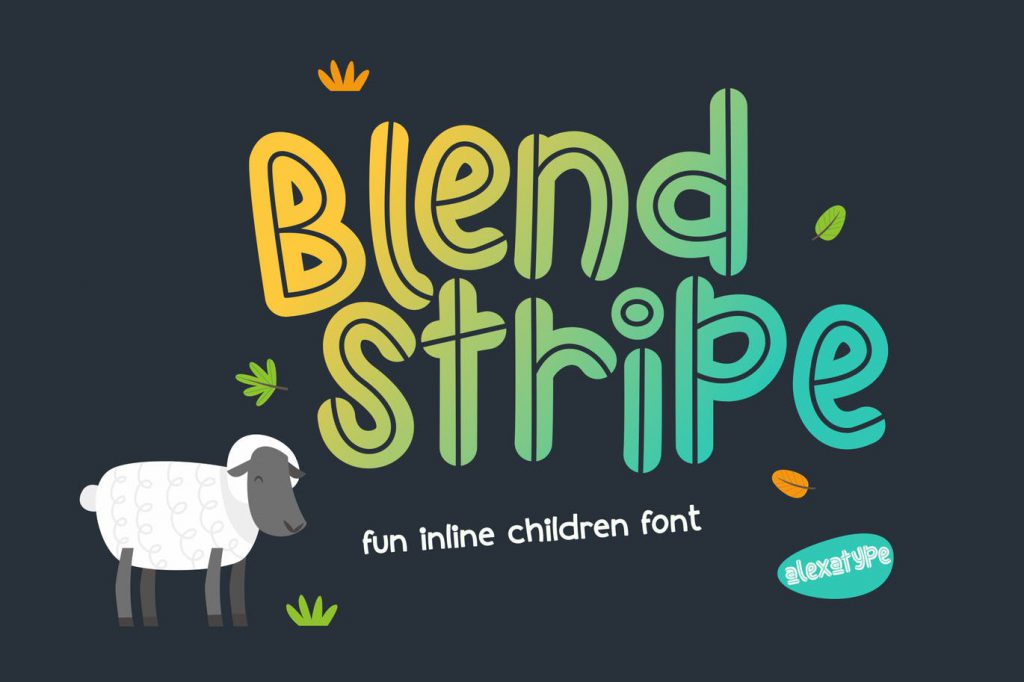
It is a hand drawn inline font that looks cute on your children projects such as wall decorations, posters, t-shirt, books, and website headers.
Hikou Inline
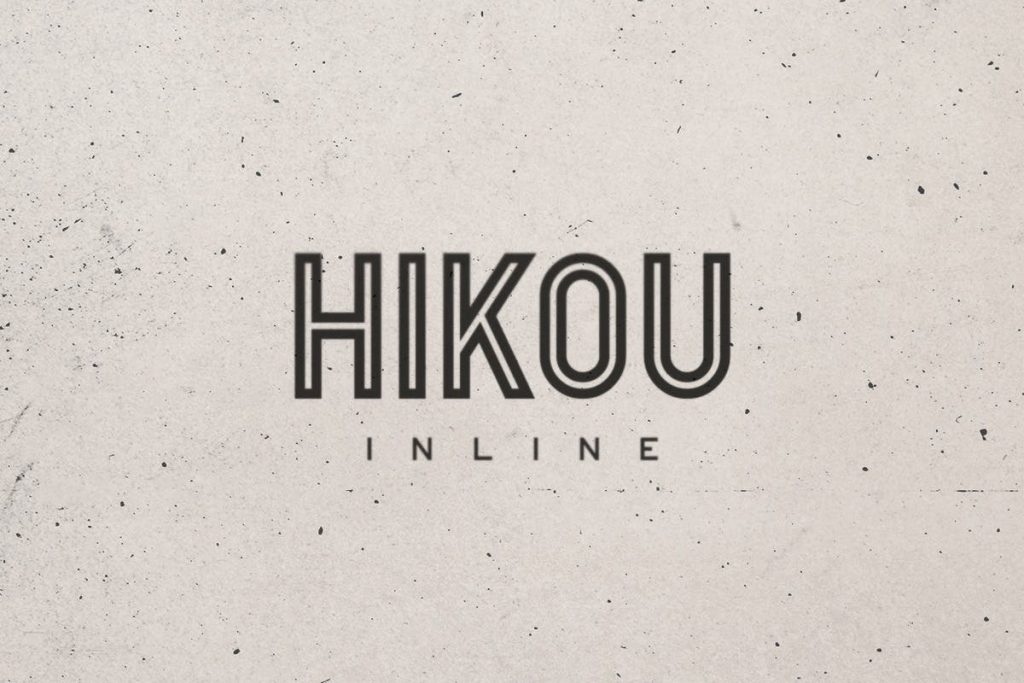
This font is great for titles and big headers. It works great as a vintage font and pairs well with just about anything. It includes uppercase multilingual letters, numbers and punctuation.
Sansterdam Inline & Outline
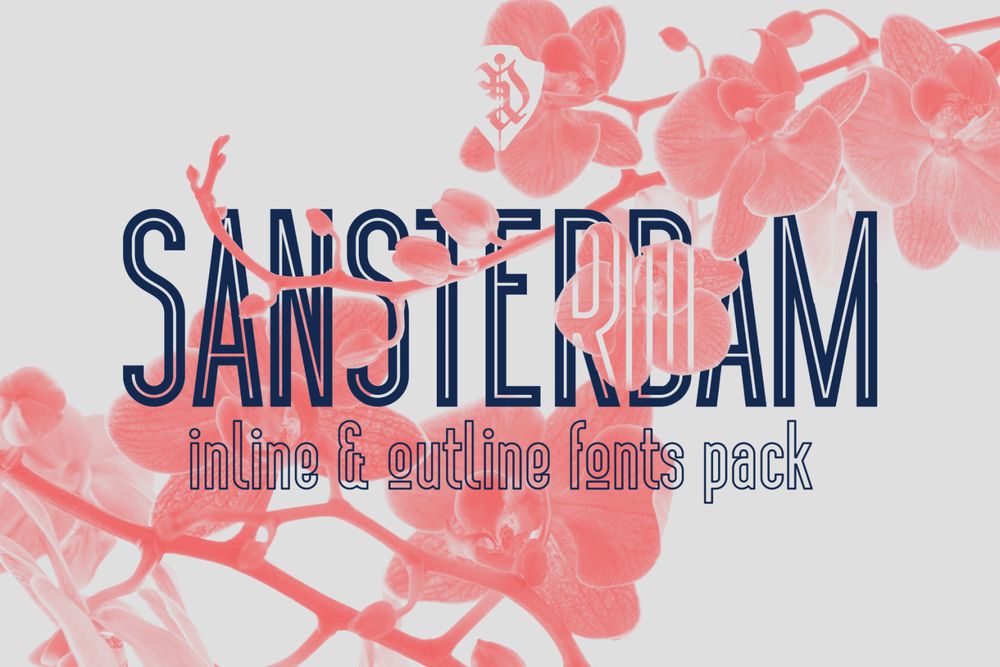
It is a modern geometric condensed grotesque font family. This font can be perfect for titles, posters, logos and etc.
LeOsler Inline & Border
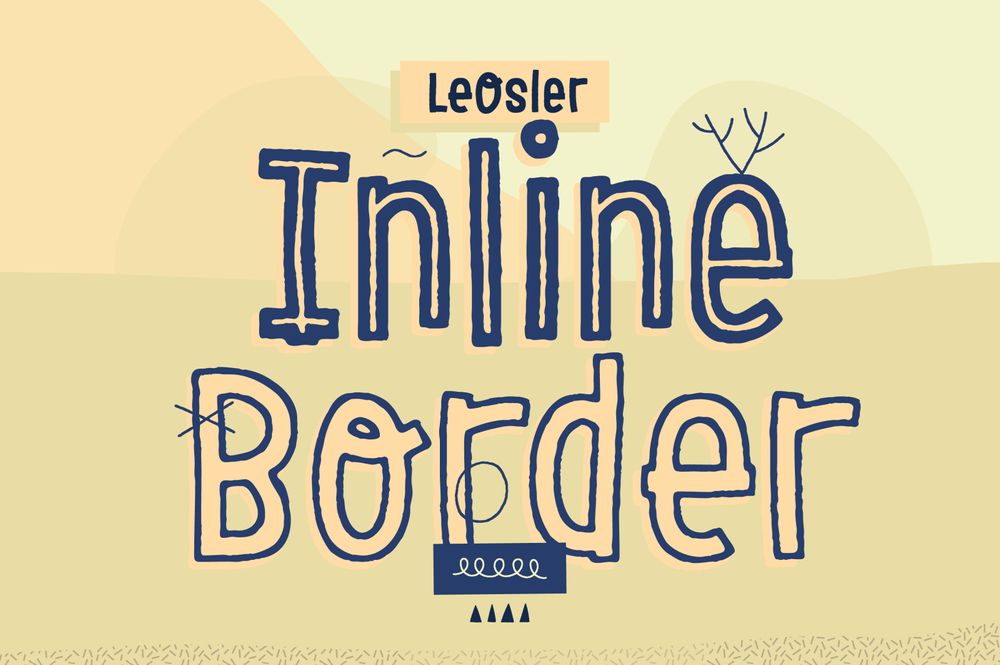
It is a decorative, fun, handwritten font that can be used in a wide range of languages. Perfect for postcards, covers, books, t-shirt, posters and etc.
Burford Inline
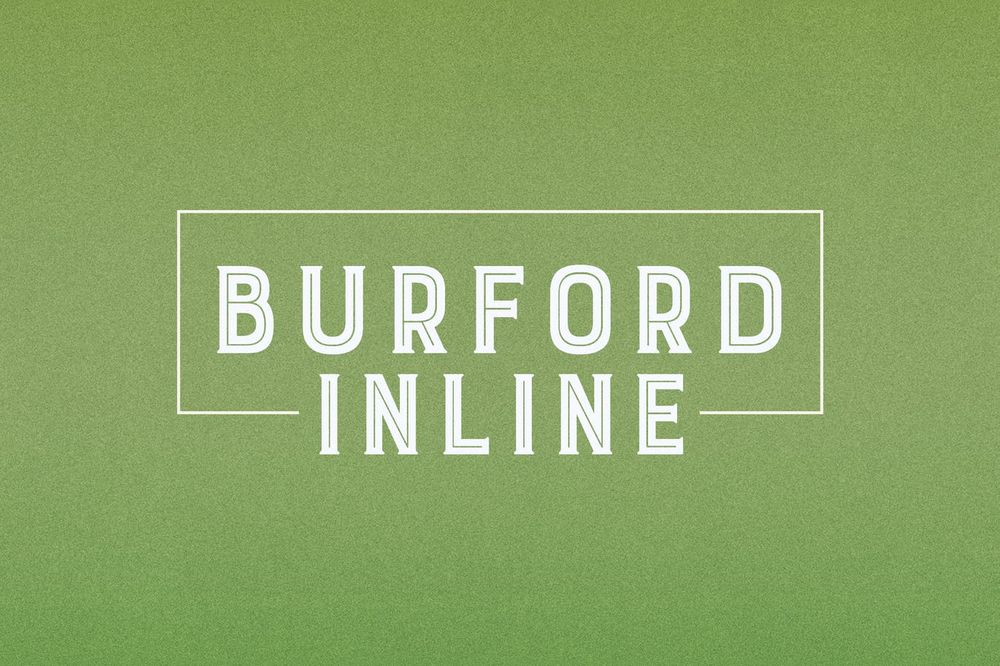
It is a clean and attractive font for any kind of design. This font can be ideal for headlines, titles, posters, covers and etc.
Ballmind / Inline Display Font
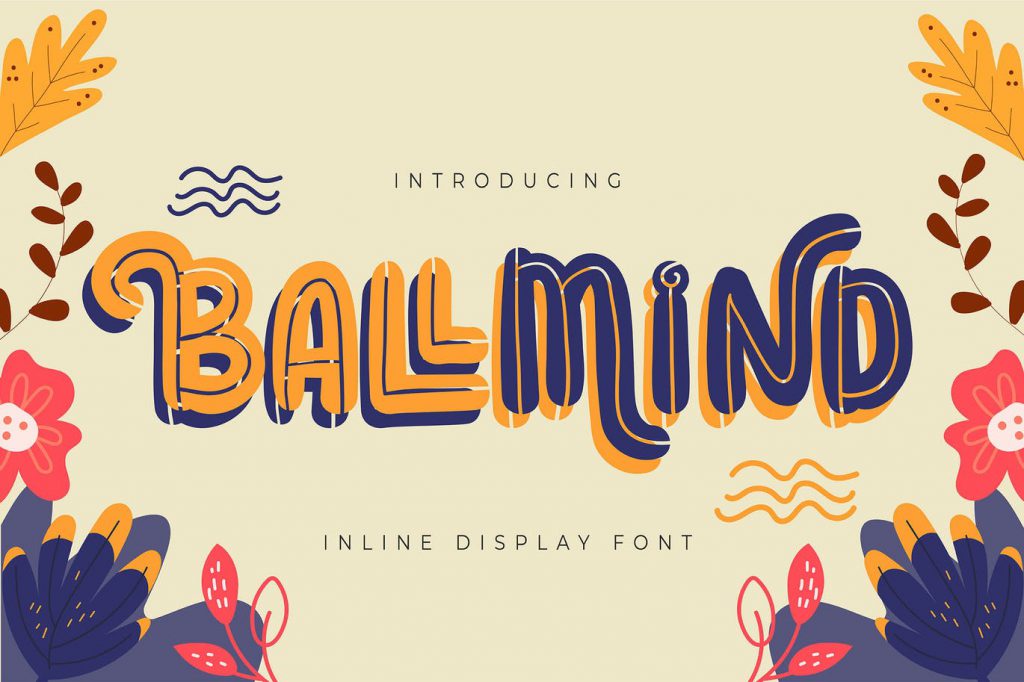
It is inline display font with a calligraphy style, so beautiful on invitation like greeting cards, branding materials, business cards, quotes, posters and etc.
Lovelo Inline Font Family (Free)
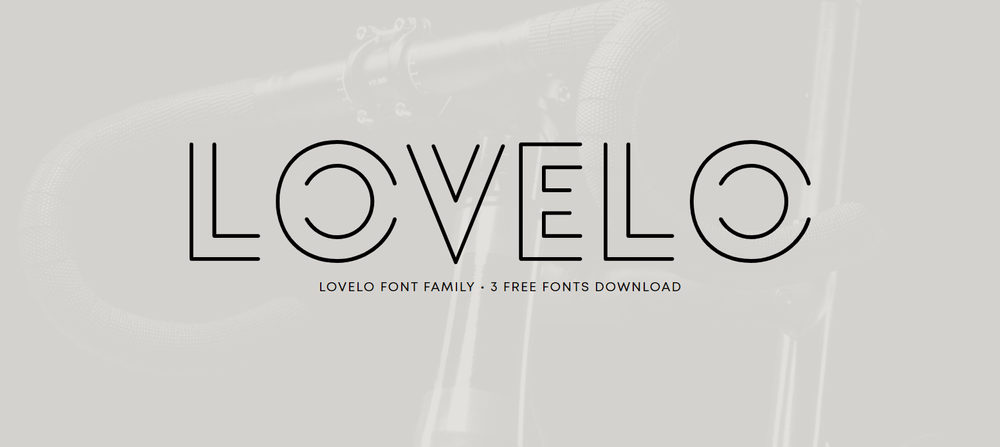
It is a free font remake of the original Lovelo Inline. Perfect for headlines, titles, posters, covers and etc.
Manthan Font (Free)
It is a free decorative font for vintage typography designs such as postcards, invitations, wedding event presentations, posters and etc.
Tribeca Font (Free)
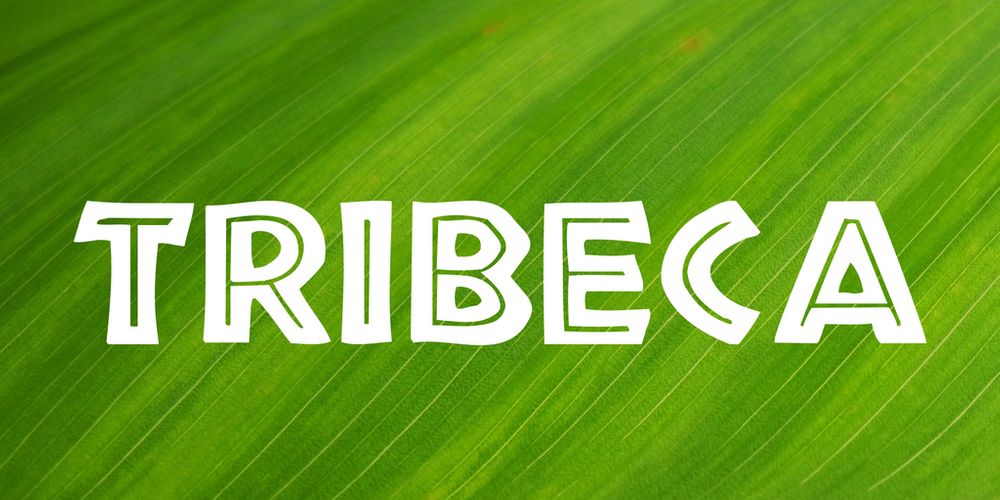
It is a free chunky inline style font for any kind of typography project. You can use it for headlines, titles, covers, posters, books, flyers and etc.
Glaschu Inline Font (Free)
It is a free inline, multilingual and clean font for your design. Perfect for headlines, titles, posters, book covers, packaging and etc.
Retro Neon Font – Inline Style
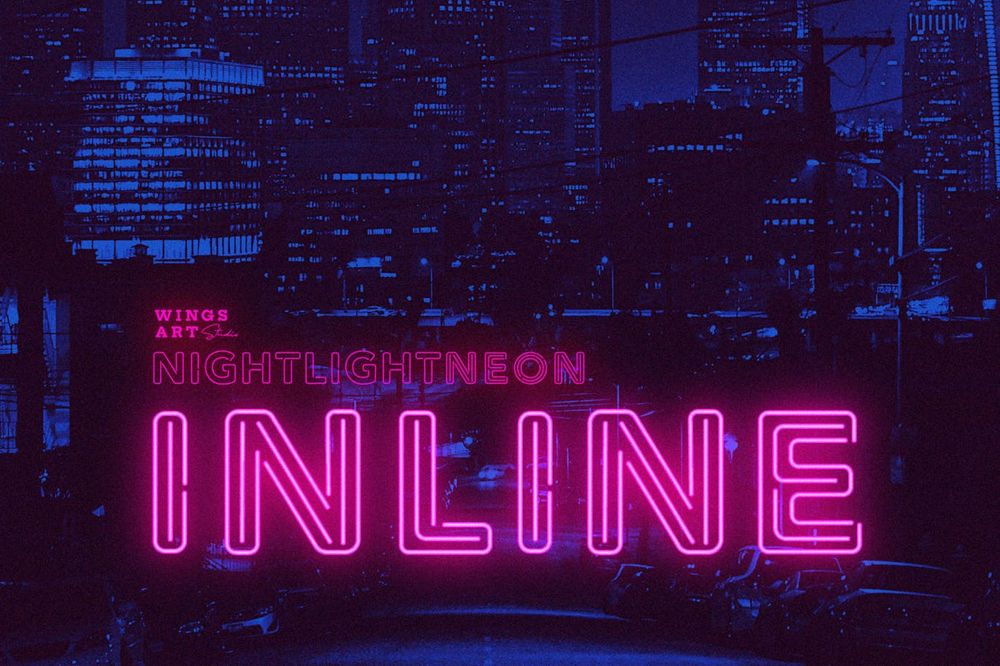
It is a gorgeous inline neon font perfectly suits for headlines, film titles, video tutorials, gig posters and when combined with the included graphic presets.
Elagond – Inline Brush Script
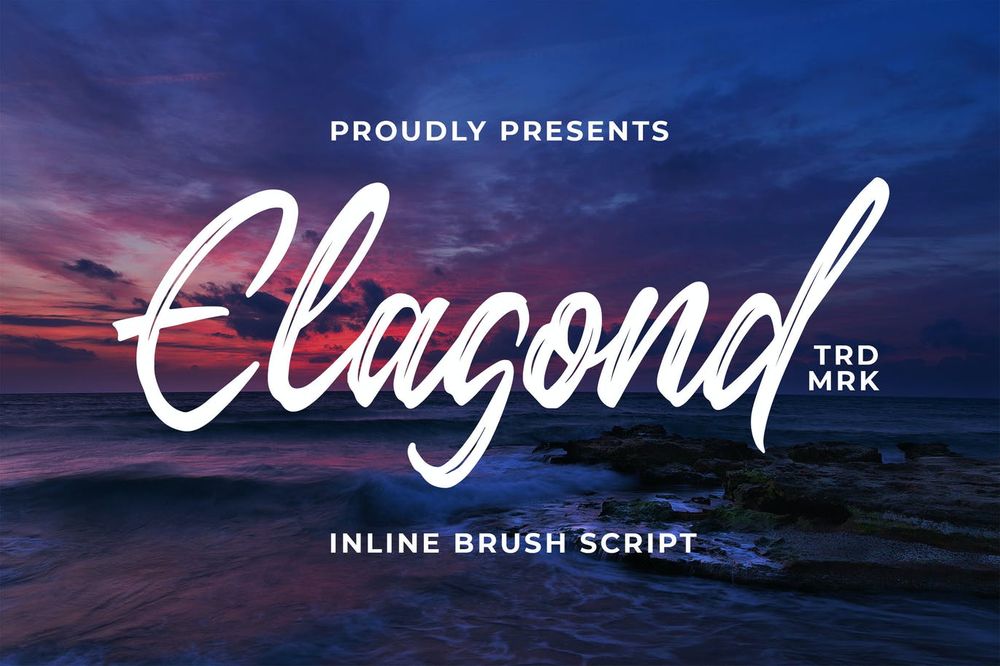
It is a clean and beautiful inline brush script font for designers to use inn their worls such as signatures, watermarks, logos, invitations, greeting cards and etc.
Decurion Typeface
It is a slab display font with many style options. It includes uppercase letters, numbers and some punctuation. Perfect for headlines, titles, posters, logos, covers and etc.
Kids Place Font
It is a new font with a playful, cute, clean style. Have three styles all of which can be combined for your project. Ideal for various projects according to your needs.
FALCO Font
It is clean and vintage look typeface that really nice used for headlines, logos, posters and many more. It comes with 4 styles.
Mabroc Font
This is an display inline sans serif font. Best suits for banners, t-shirt, logos, posters, titles and etc.
Fixer Font (Free)
It is a free and bold typeface family. Ideal for headlines, titles, book covers, posters, packaging and etc.
Pontiac Inline Font Collection
It is alayered art deco font. This finely balanced inline font can be enhanced to improve your designs and bring an unusual and modern feeling.
Bourton Typeface
It is a type family with 34 different fonts. Extra quality fonts are perfect for any kind design where needs an awesome typography. Enjoy it for invitations, greeting cards, headlines, titles, covers, posters and etc.
Skiba Font
It is a bold, hand-drawn font with a unique inline style. Perfect for children books, t-shirt design, covers, greeting cards, postcards and etc.
Swim Cap Font
It is a layered font family inspired by mid-century beach culture. Enjoy it for display needs, headlines, titles, posters, covers and etc.